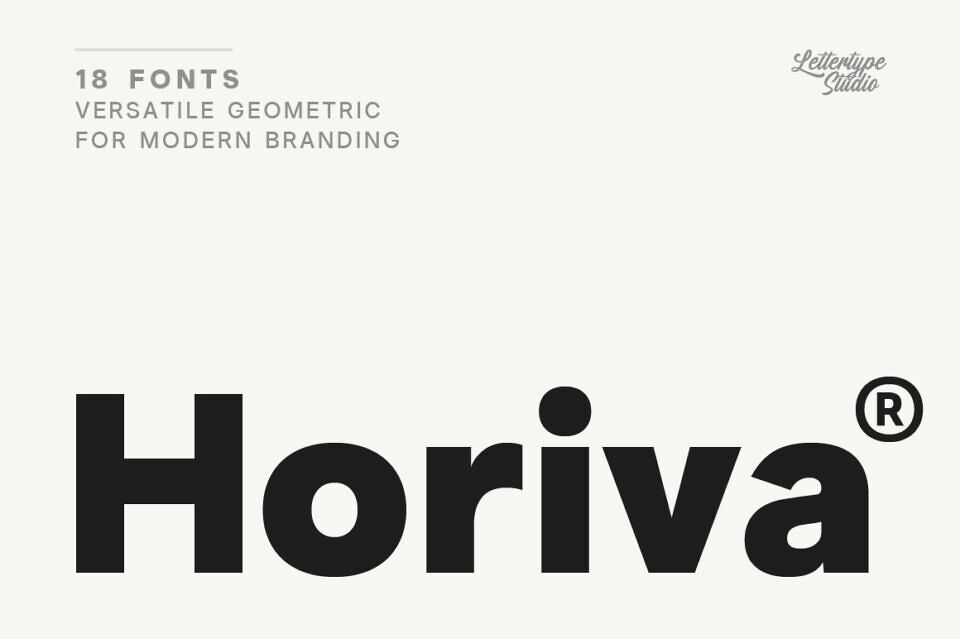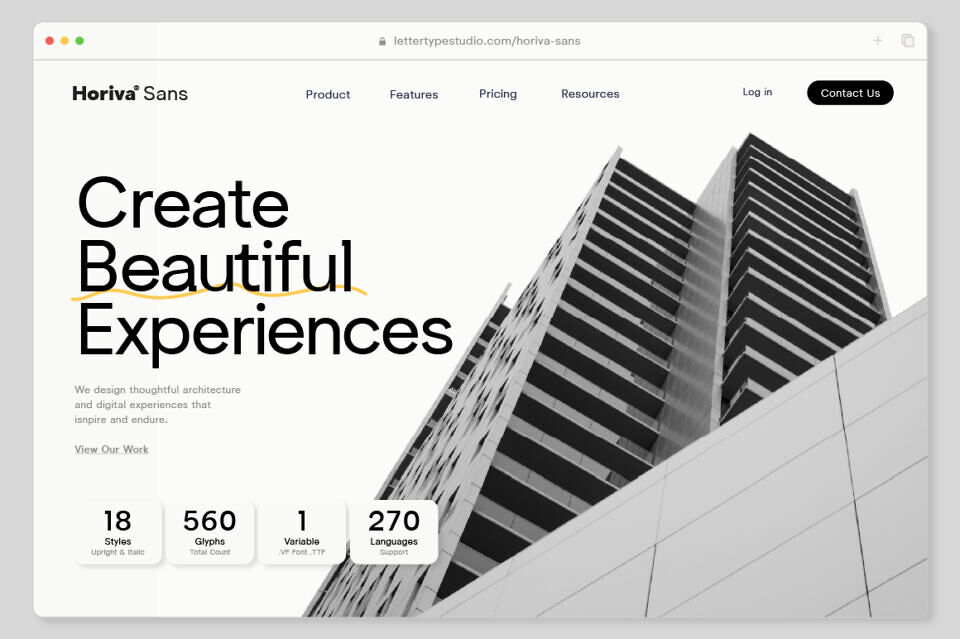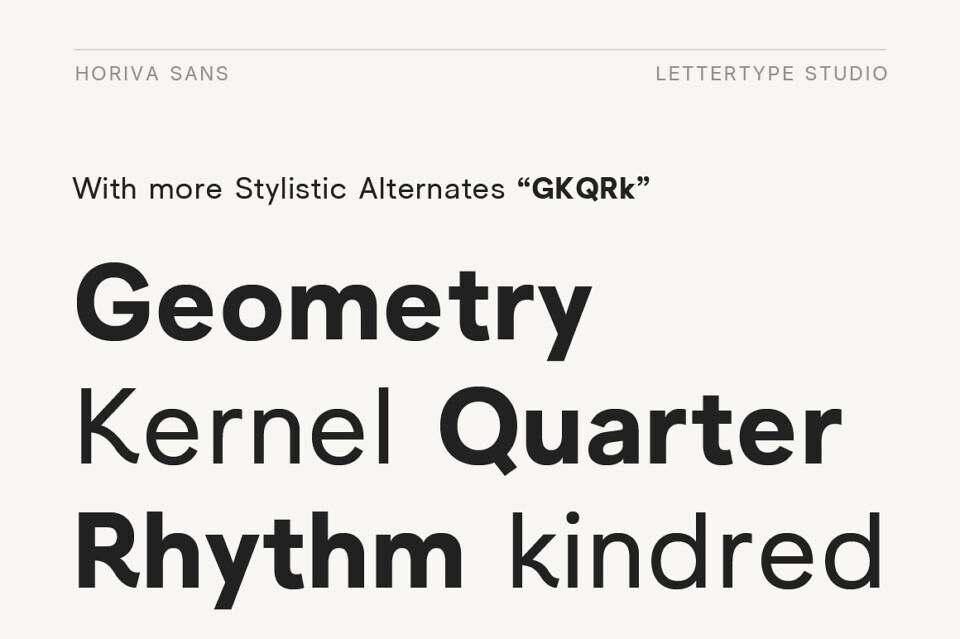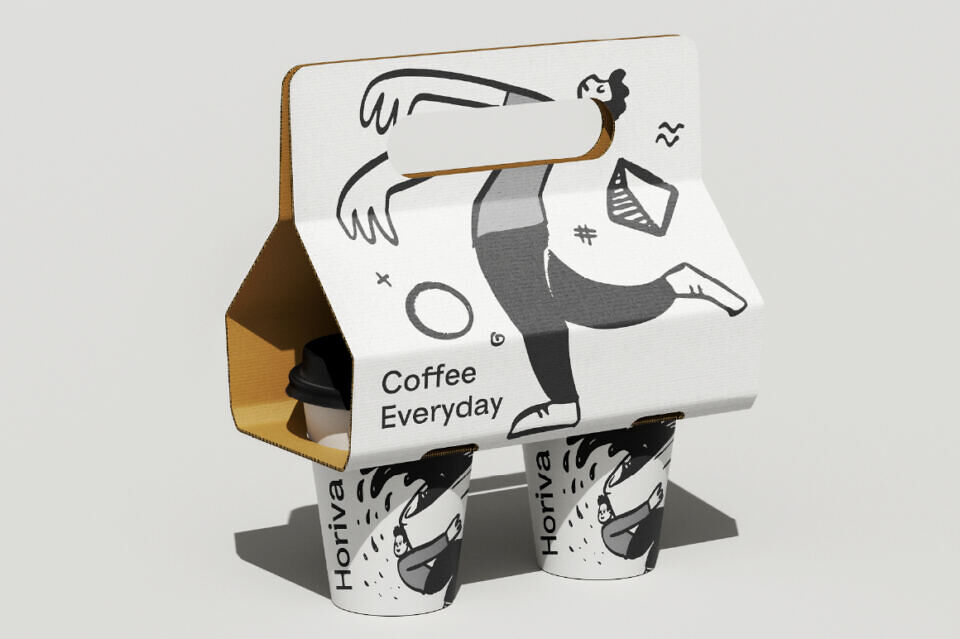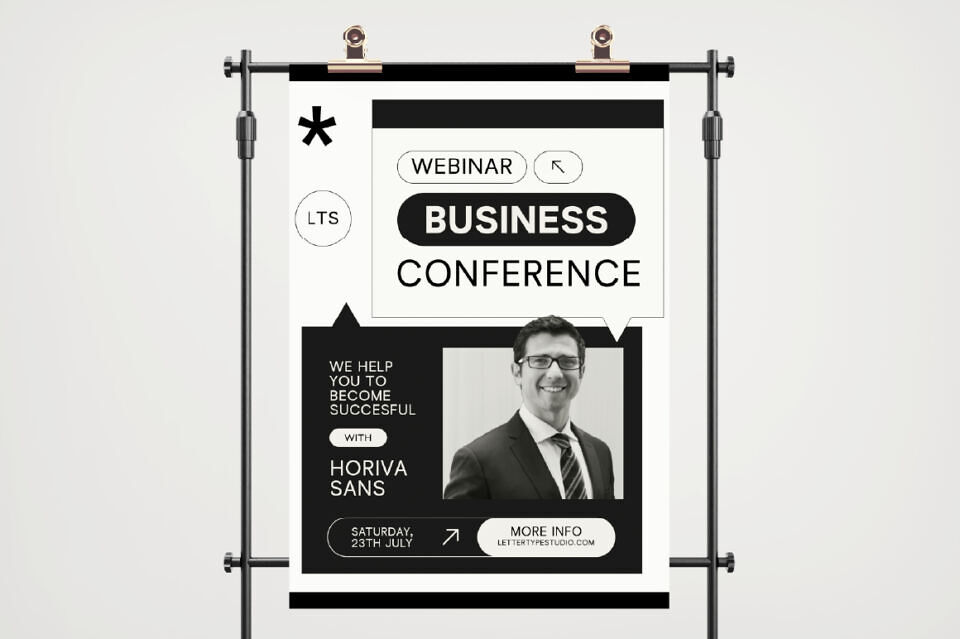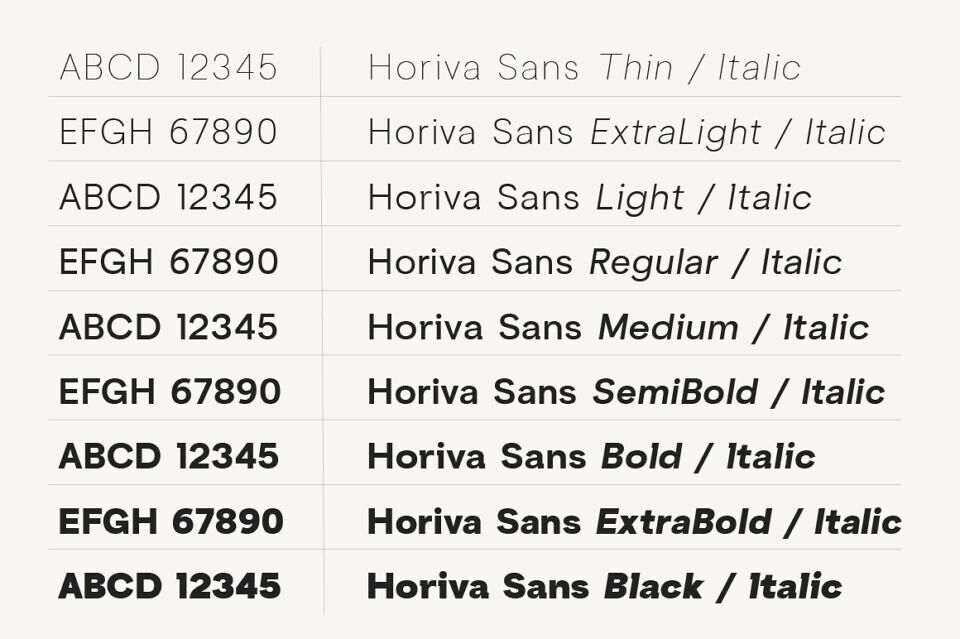
Horiva Sans is a contemporary geometric sans serif family designed to provide clarity, versatility, and refined visual balance for modern typography. Built with carefully considered optical corrections, consistent spacing, and balanced proportions, every character has been developed to maintain excellent readability while preserving a clean geometric aesthetic.
Whether used for branding, editorial layouts, interface design, corporate communication, packaging, or presentation materials, Horiva delivers a timeless foundation for professional design projects. The family includes 18 styles ranging from Thin to Black with matching italics, allowing designers to create flexible typographic hierarchies across a wide range of applications.